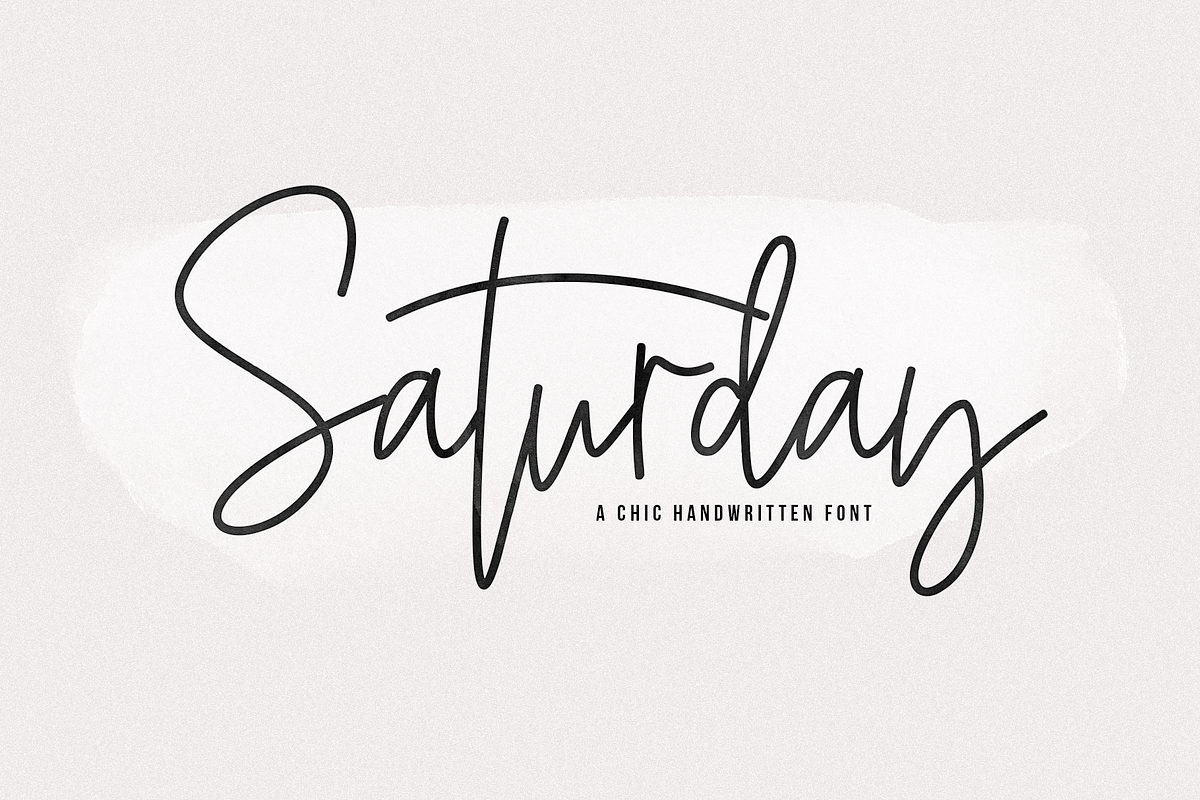
Saturday - Signature Script Font Free Download is a sophisticated, handwritten script typeface that exudes elegance and personality. With its smooth, flowing strokes and signature-style letterforms, this font is perfect for creating a personalized, luxurious feel in your designs. Whether you're working on wedding invitations, branding, social media graphics, or custom stationery, Saturday brings a refined, artistic touch to your typography.
The fluid and natural design of Saturday gives it an authentic handwritten look, making it ideal for projects that need a personal, elegant touch. It’s perfect for logos, quotes, invitations, and any design that seeks to convey a sense of style and individuality.
Enhance your designs with Saturday - Signature Script Font Free Download, and create typography that feels as personal and elegant as a handwritten note. Perfect for designers looking for a sophisticated, script font with personality.